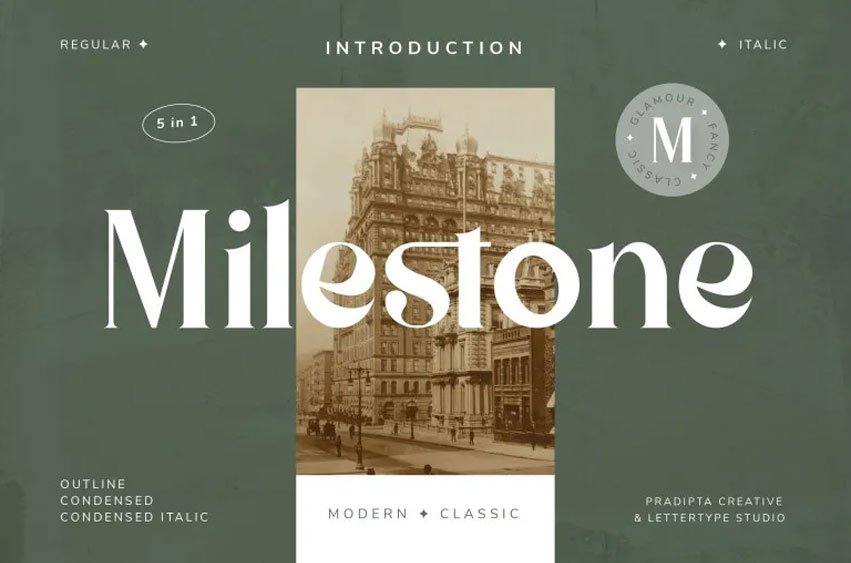
Milestone Font
Milestone Font is an elegant, glamorous, and sophisticated font which makes an excellent choice for logo designs, clothing branding signs, headers wedding invitations posters or anything else! This font can also be found in its free trial version here!
This typeface’s goal was to combine classical and modern serif font styles into one luxurious font family that will help your design appear even more elegant and luxurious